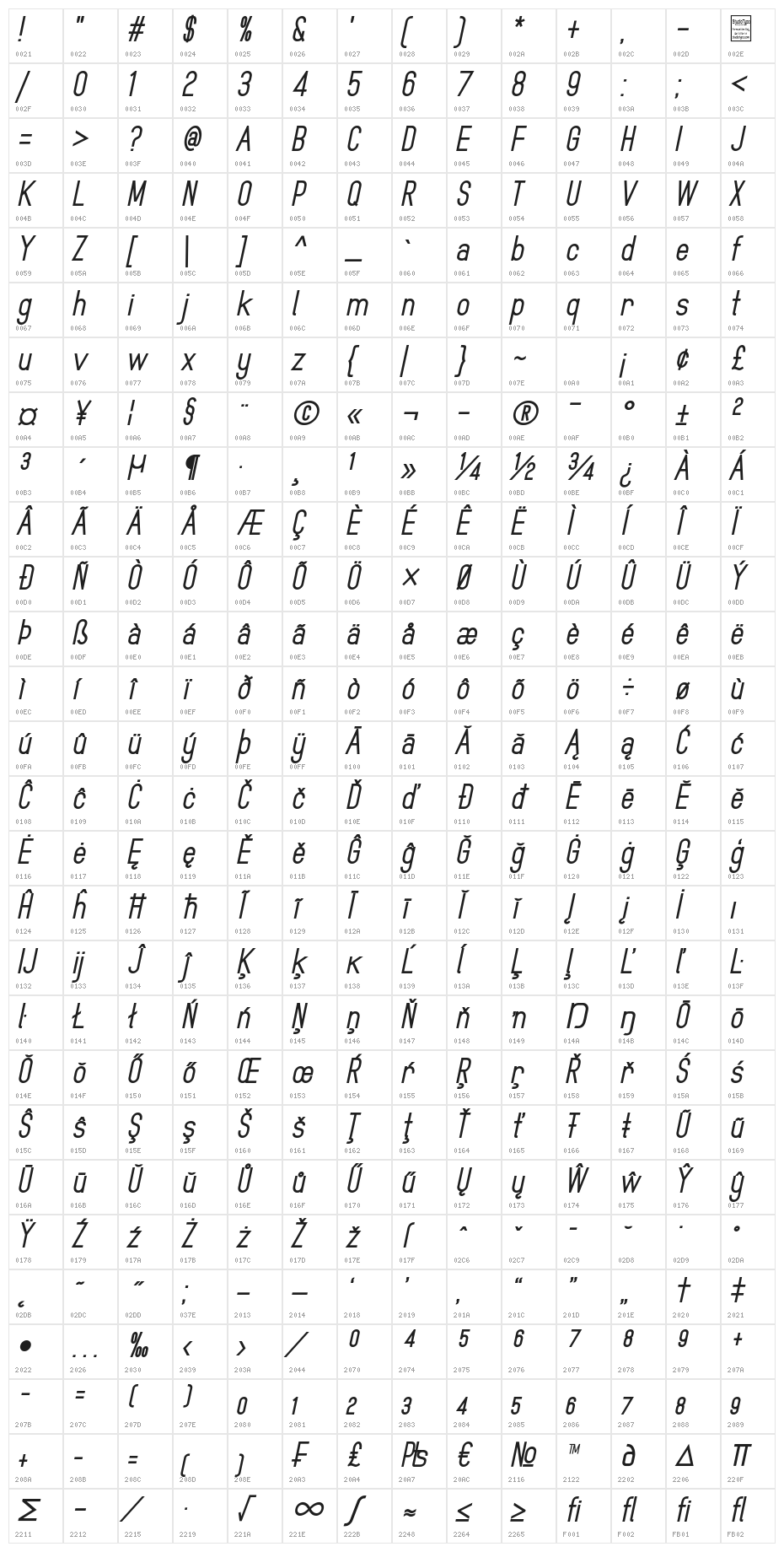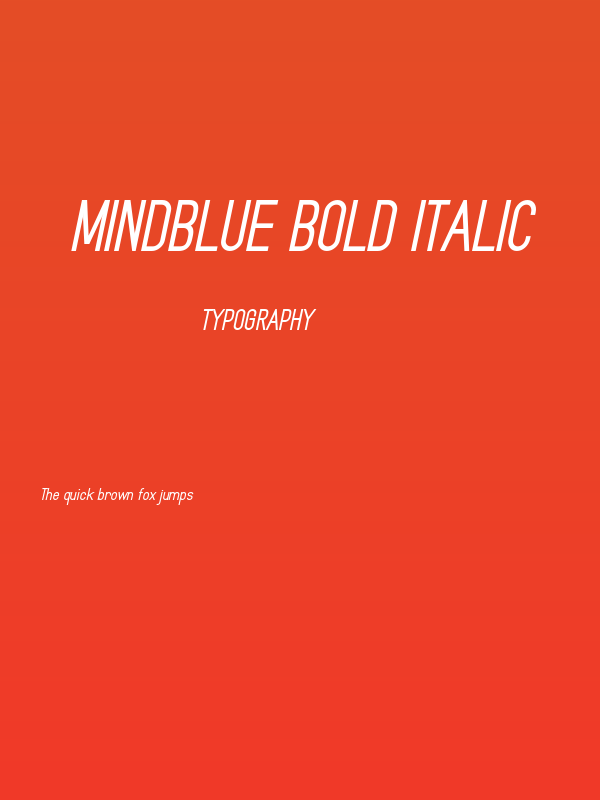
MindBlue Bold Italic Font
MindBlue Bold Italic Description
This font features a bold and italicized style with a modern and sleek appearance. The characters are slightly condensed, giving it a compact look while maintaining readability. The uppercase and lowercase letters are well-balanced, with a consistent slant that adds a dynamic feel. The numerals are clear and distinct, matching the overall style of the alphabet. Special characters are included, maintaining the same bold and italicized characteristics. The font's design is suitable for making a strong visual impact, ideal for headlines or branding projects.